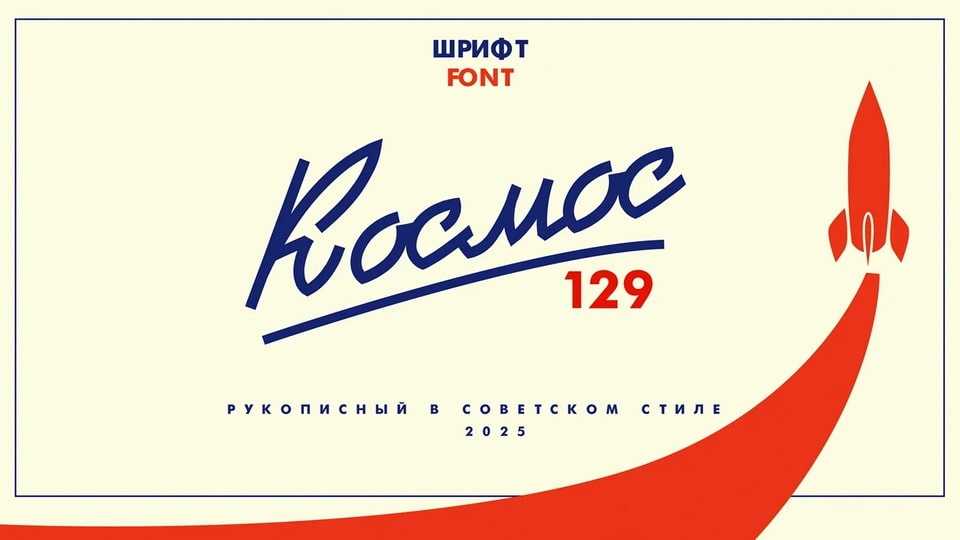
Download Kosmos 129 font, a handwritten typeface in Soviet style inspired by signs, posters and general ethos of the USSR era of the 1960s-1980s.
Designer: Vadim Bashlakov